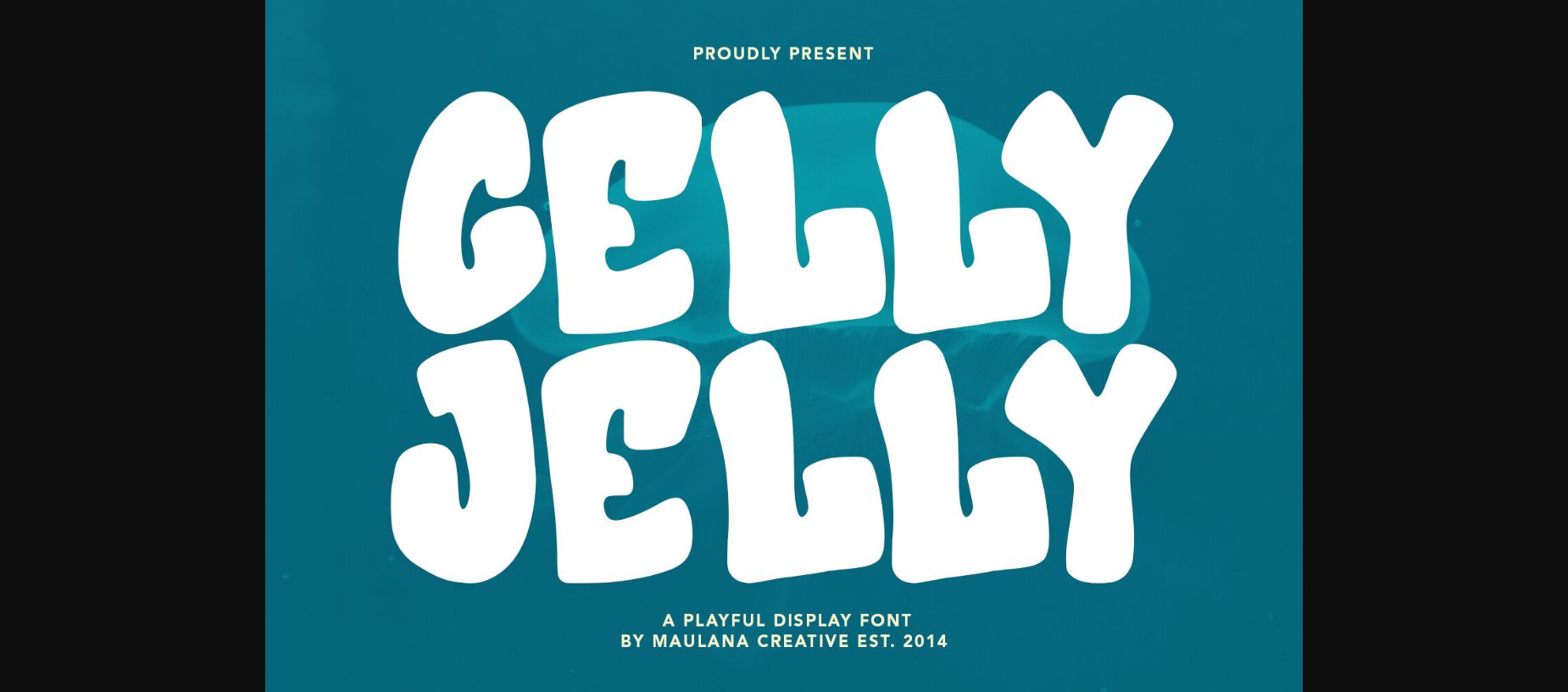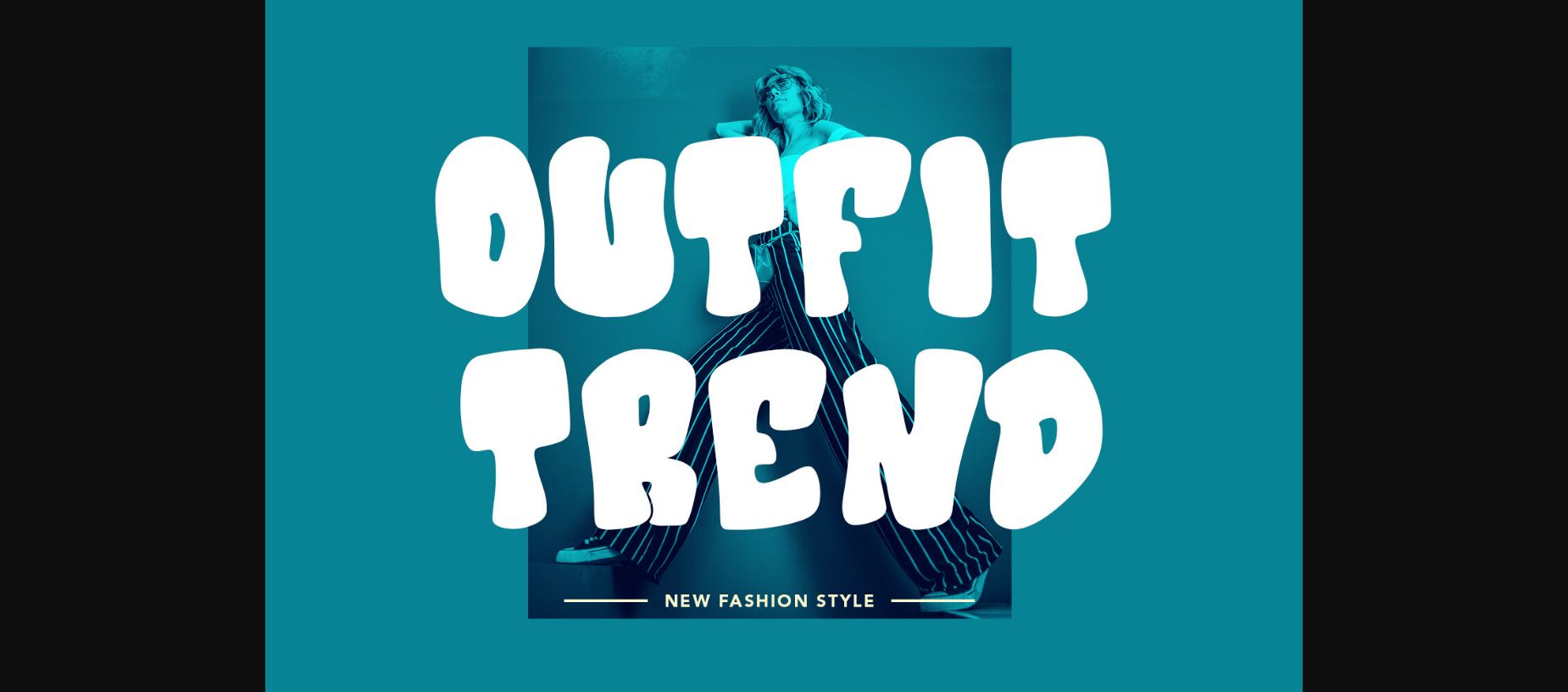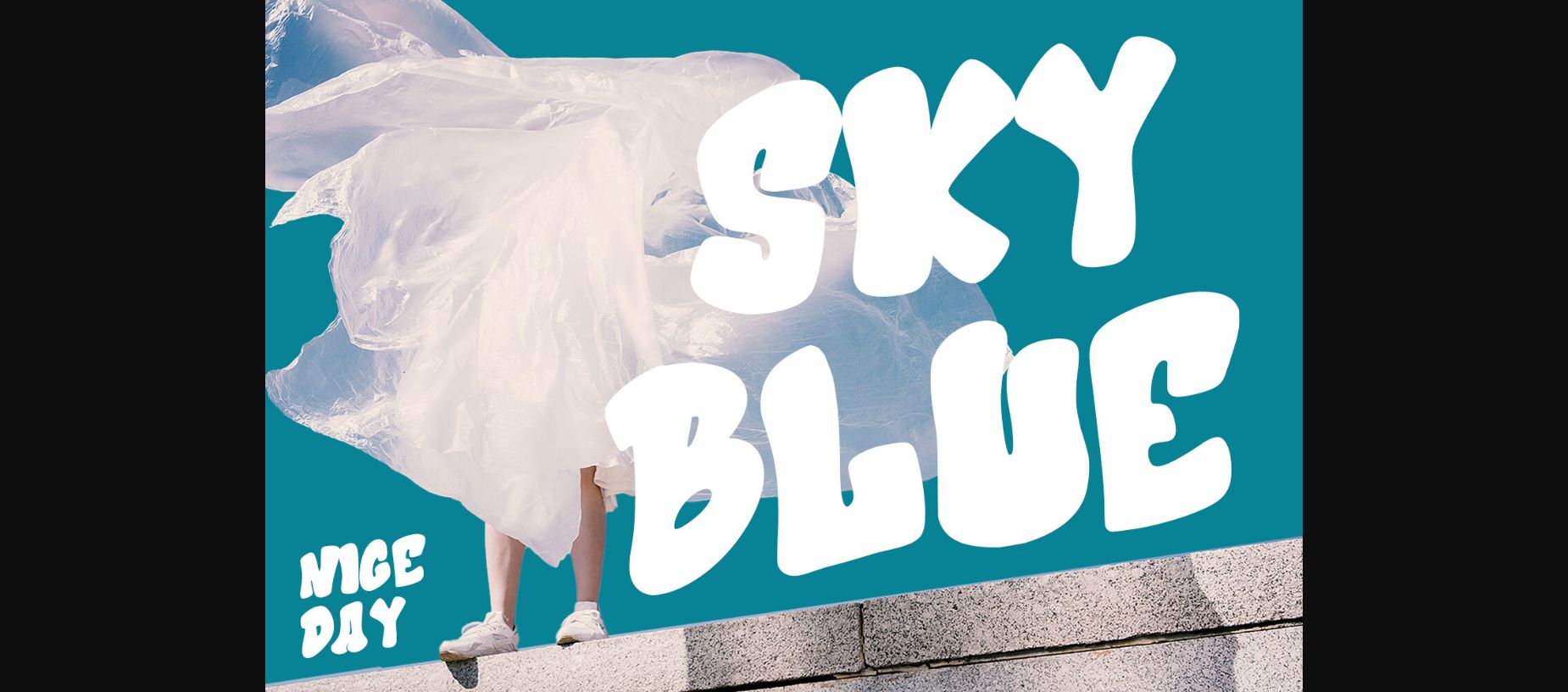
About Celly Jelly Font
Celly Jelly playful display font. Bold stroke, fun character with a bit of ligatures and alternates. To give you an extra creative work. Celly Jelly playful display font support multilingual more than 100+ language. This font is good for logo design, Social media, Movie Titles, Books Titles, a short text even a long text letter and good for your secondary text font with script or serif. Make a stunning work with Celly Jelly playfull display font.